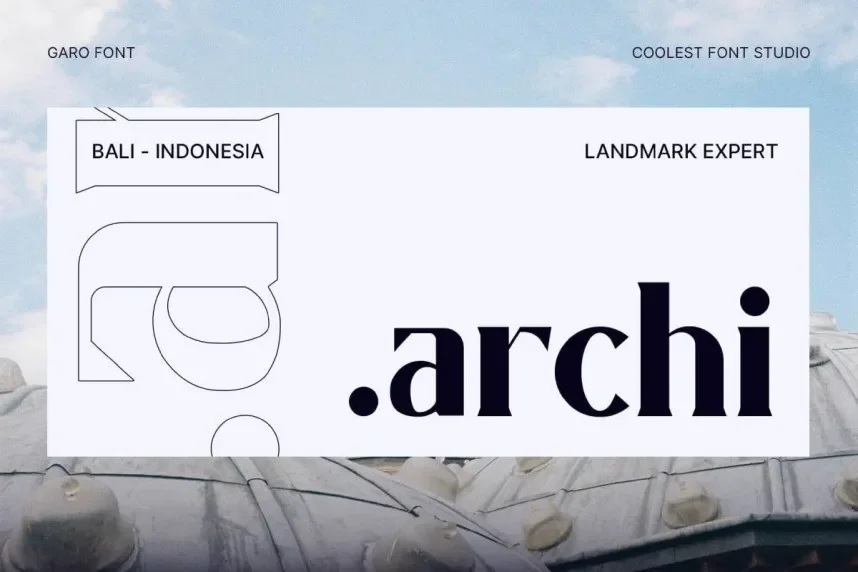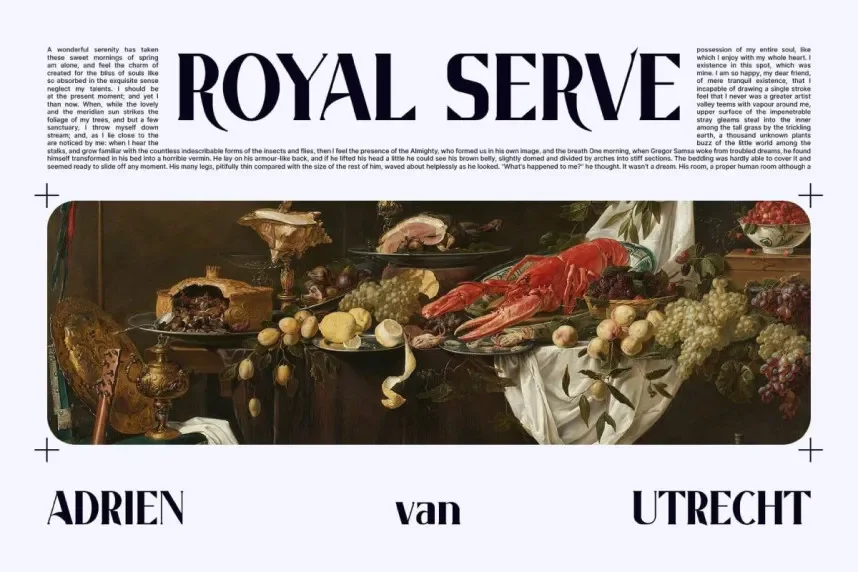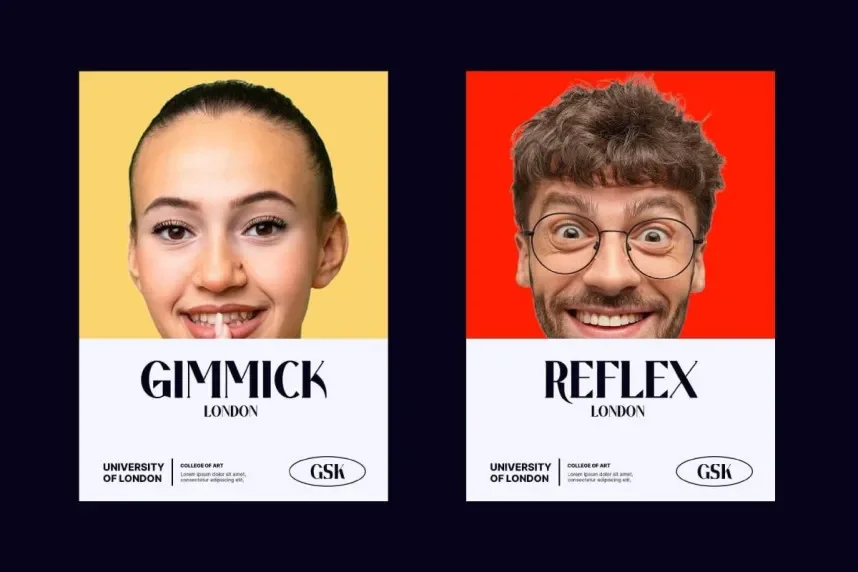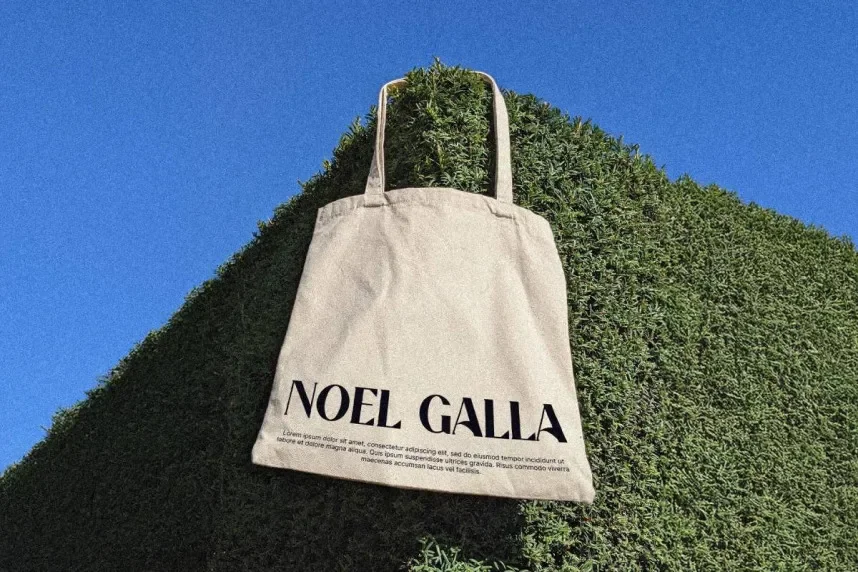
Garo Font is a sans-serif typeface designed for clear communication across branding and digital interfaces. It addresses common problems like poor readability and inconsistent typography in websites, UI design, and printed brand materials.
Garo Font falls into the modern sans-serif category. Its letterforms feature uniform stroke widths, open counters, and balanced spacing that improve legibility on screens and in print. The font avoids decorative elements, focusing instead on structure and clarity. These traits support consistent visual hierarchy in headings, labels, and body text.
Designers use Garo Font for brand identities, website typography, UI components, mobile apps, corporate documents, and marketing materials. It performs well at both small and medium sizes, making it suitable for paragraphs and interface text. For contrast, it pairs effectively with a serif font for headlines or a light display font for accents.